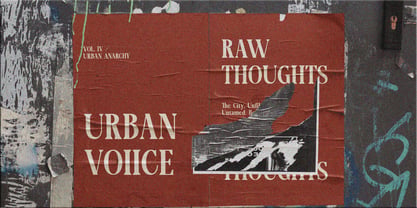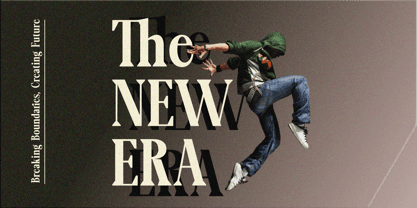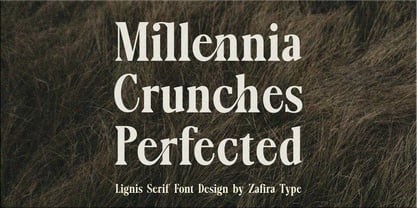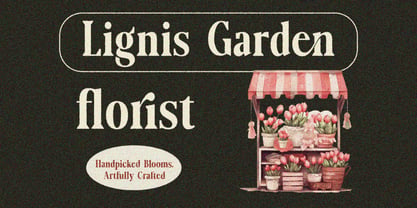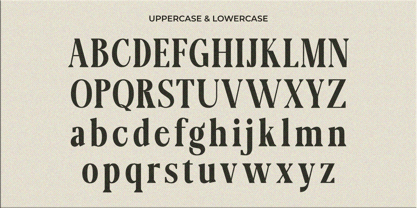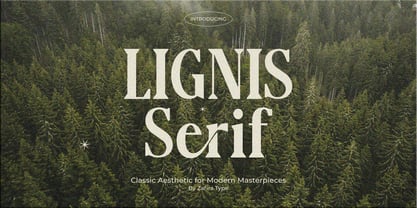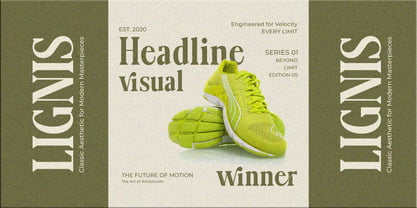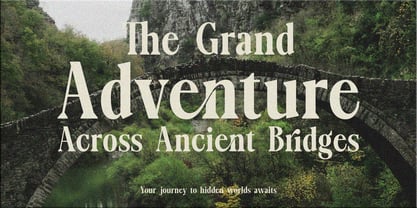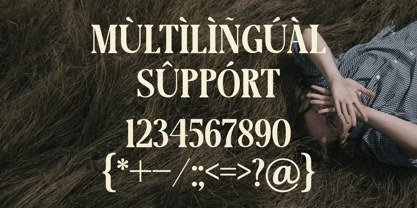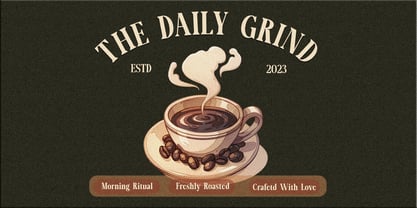
Lignis
by Zafira Type
The Lignis Font Family was designed by Su Hirno and published by Zafira Type. Lignis contains 2 styles and family package options. More about this family
Lignis is a serif typeface inspired by the natural strength and elegance of wood—solid, warm, and full of character. Carefully crafted letterforms with balanced proportions create a classic yet refined appearance, making it suitable for both traditional and modern design needs. Featuring strong serifs and subtle details, Lignis works beautifully for branding, editorial design, logos, book titles, premium packaging, and luxury or heritage-themed projects. Lignis brings a timeless, professional, and sophisticated voice to any visual identity.